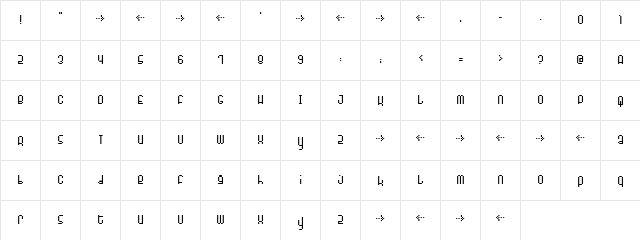
Monophonic Regular
Design Context for Monophonic Typeface
Monophonic brings the precise, column-aligned rhythm of monospaced typography to designs that value technical clarity and systematic order.